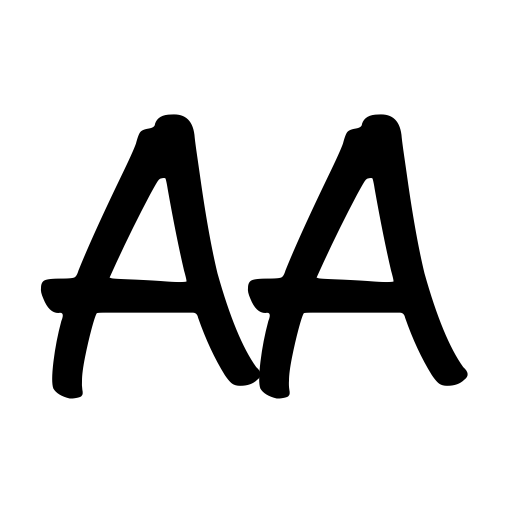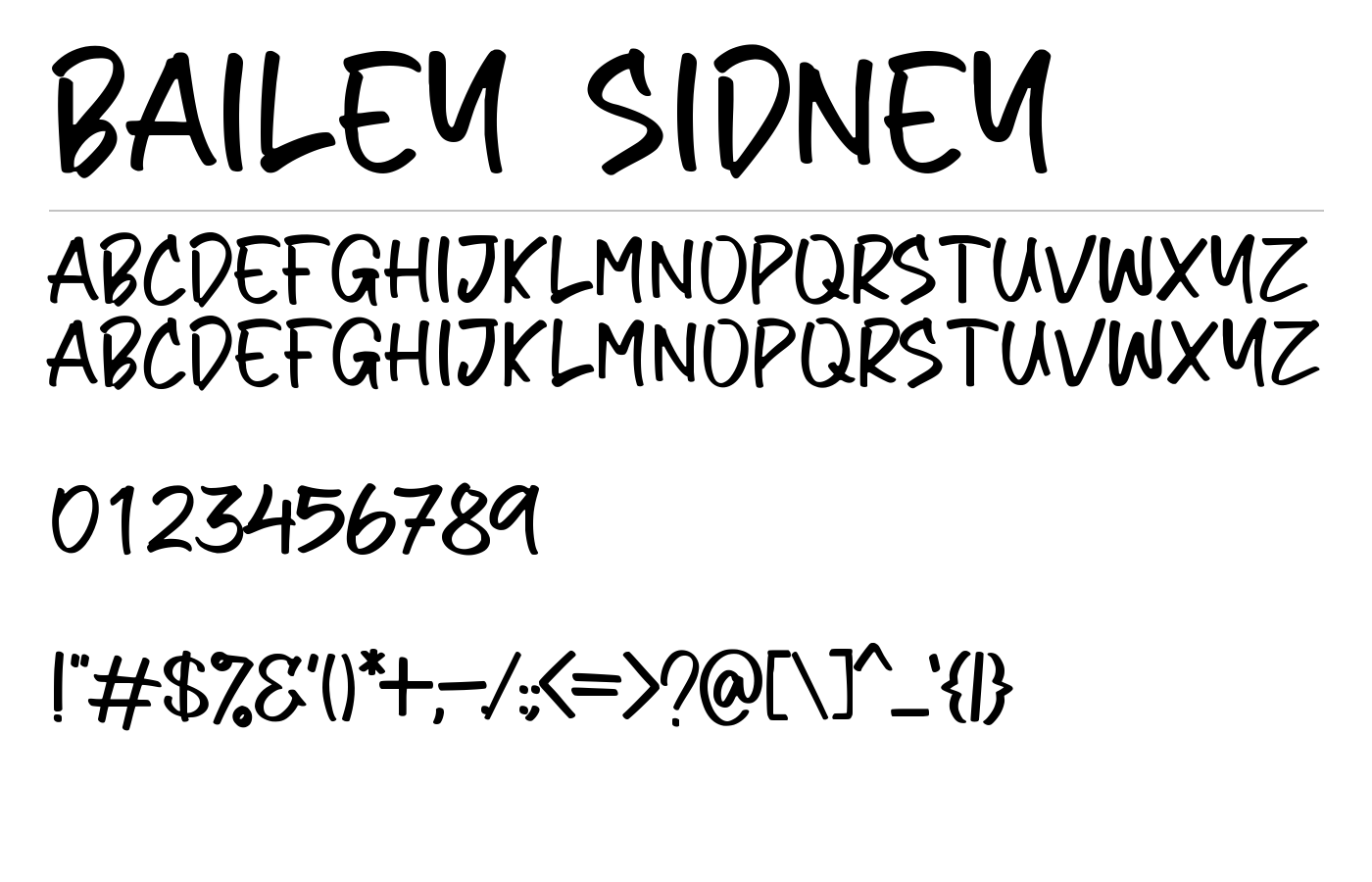
Bailey Sidney is a playful, handwritten sans serif font that combines a casual, friendly feel with strong readability. Its slightly irregular, brush-like strokes and moderate x-height make it ideal for creative projects, informal branding, and fun headlines where a personal, approachable touch is desired. This font works well for websites, posters, and packaging that aim to convey warmth and personality without sacrificing clarity.
Bailey Sidney Font
About Bailey Sidney Font